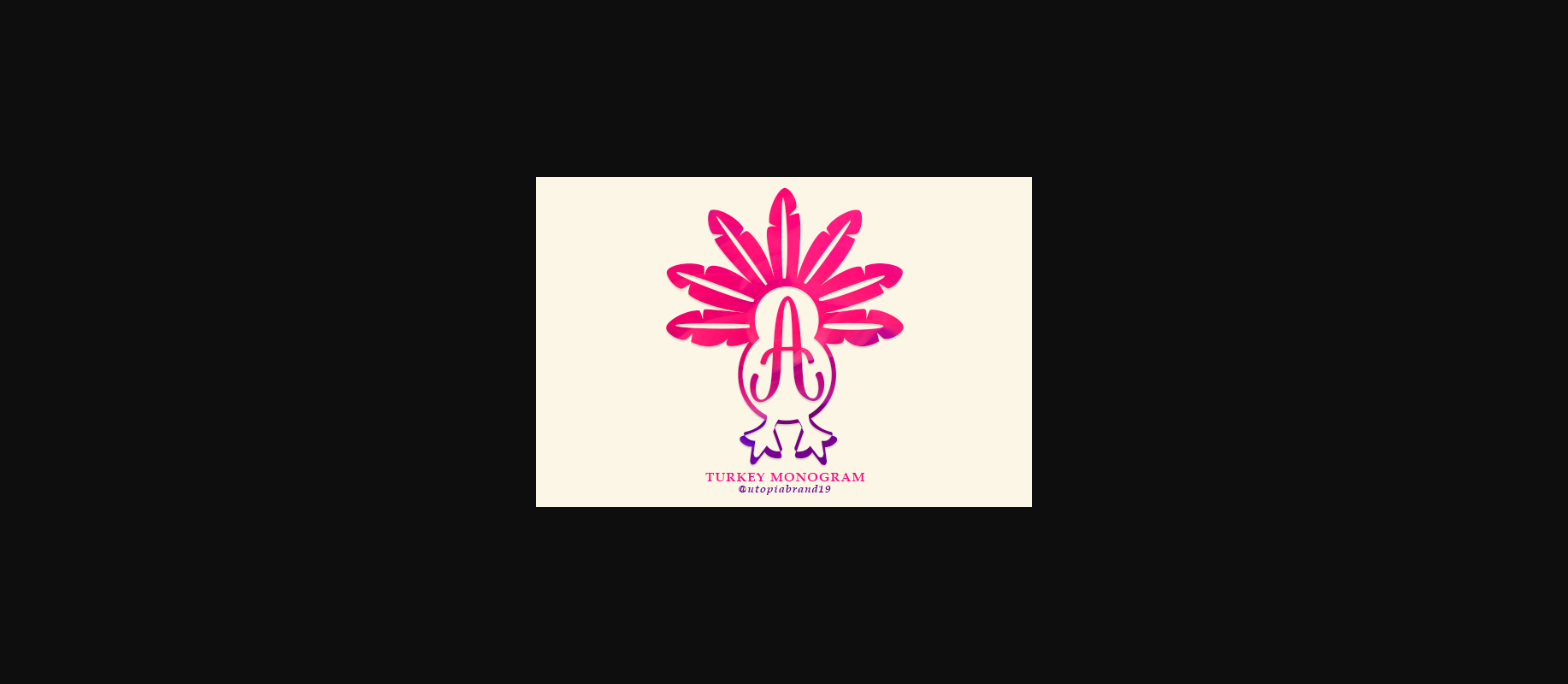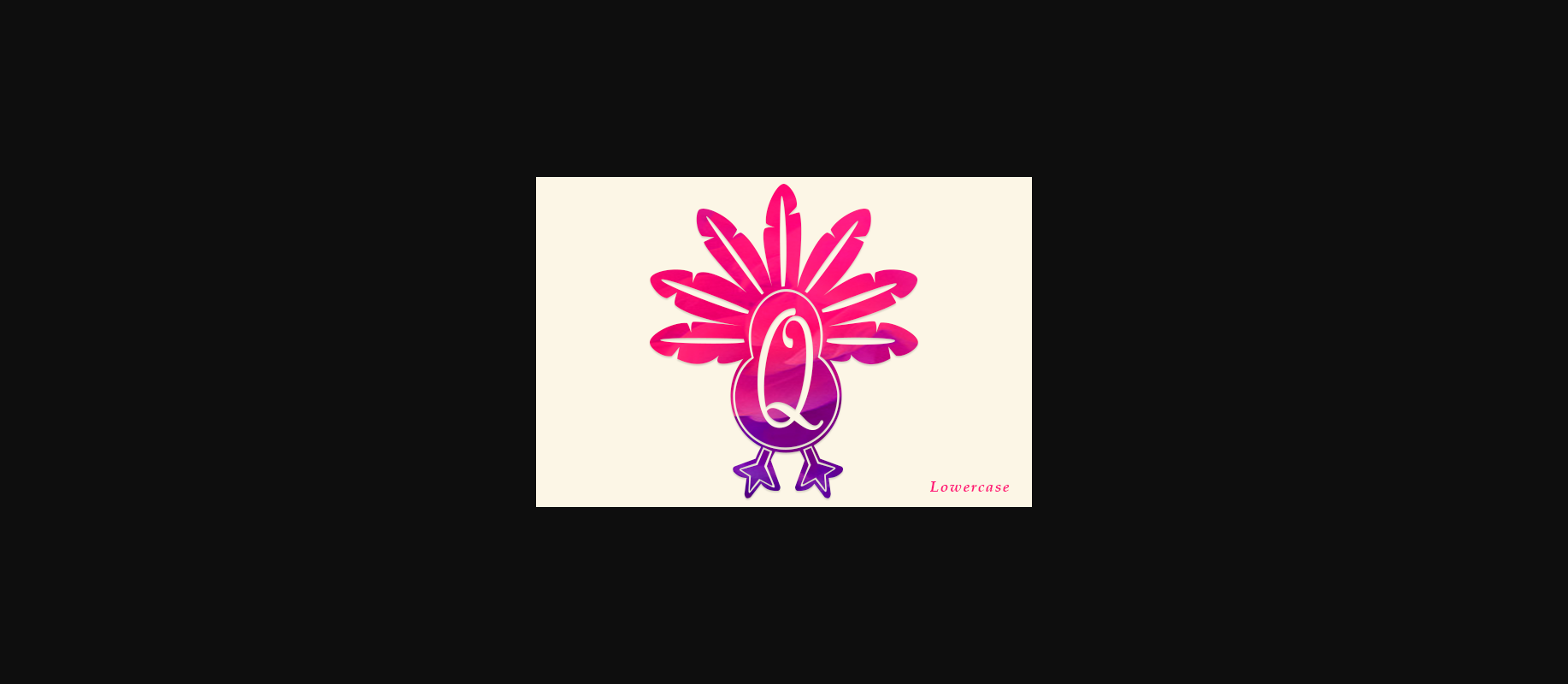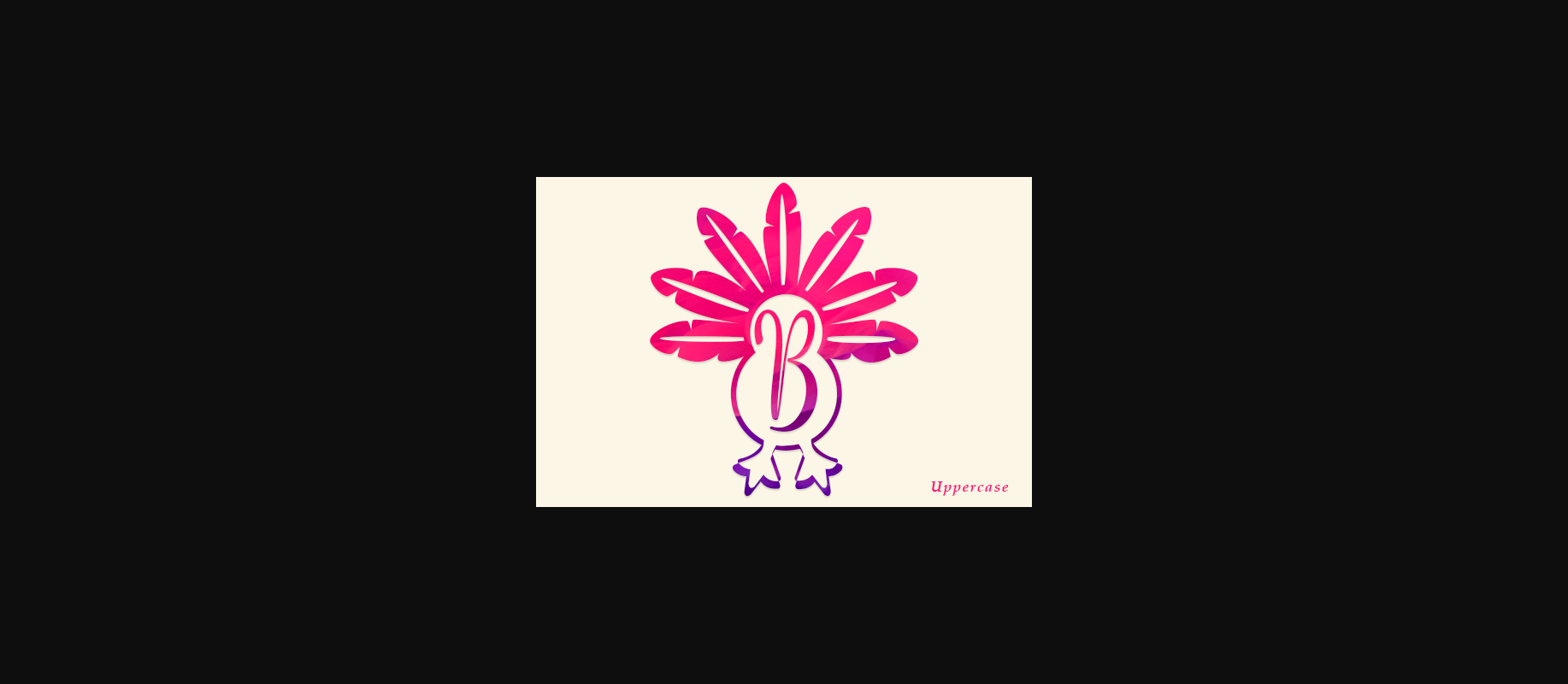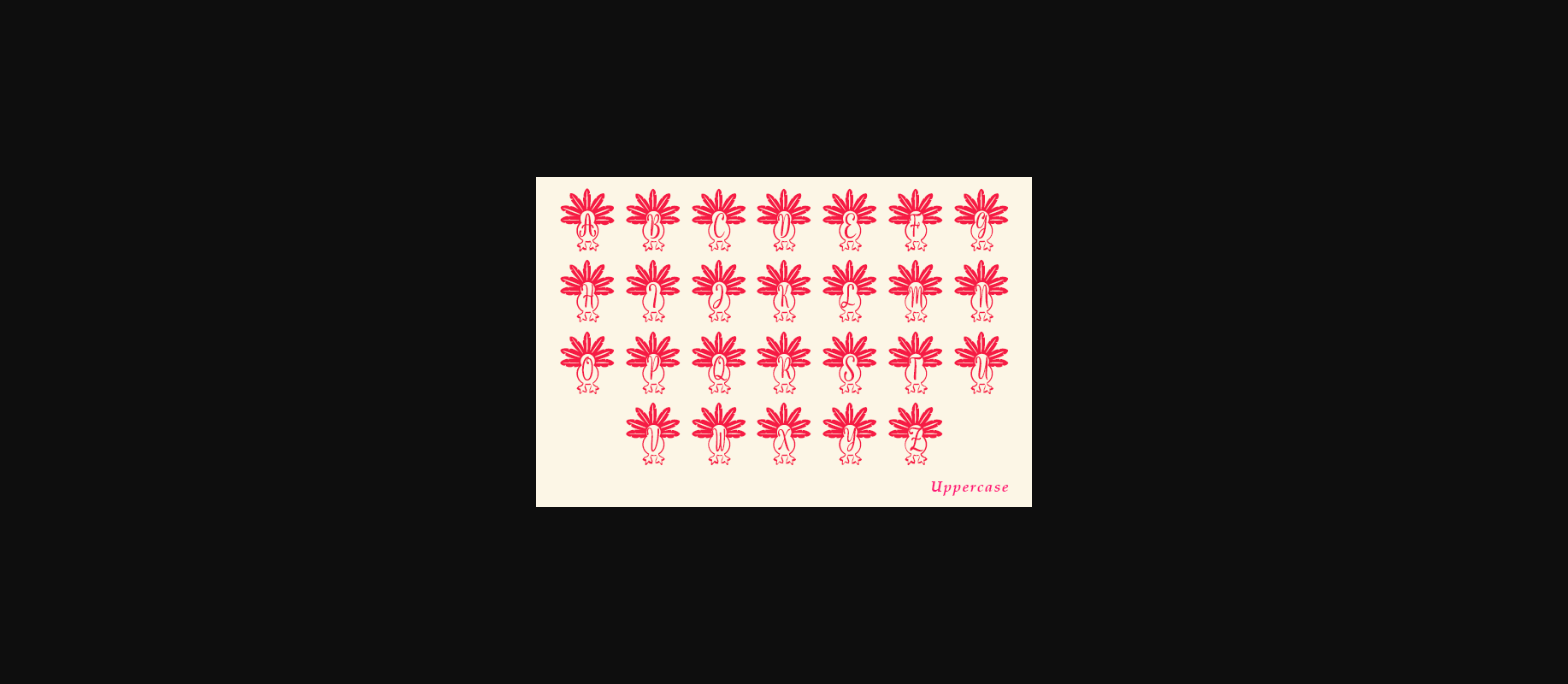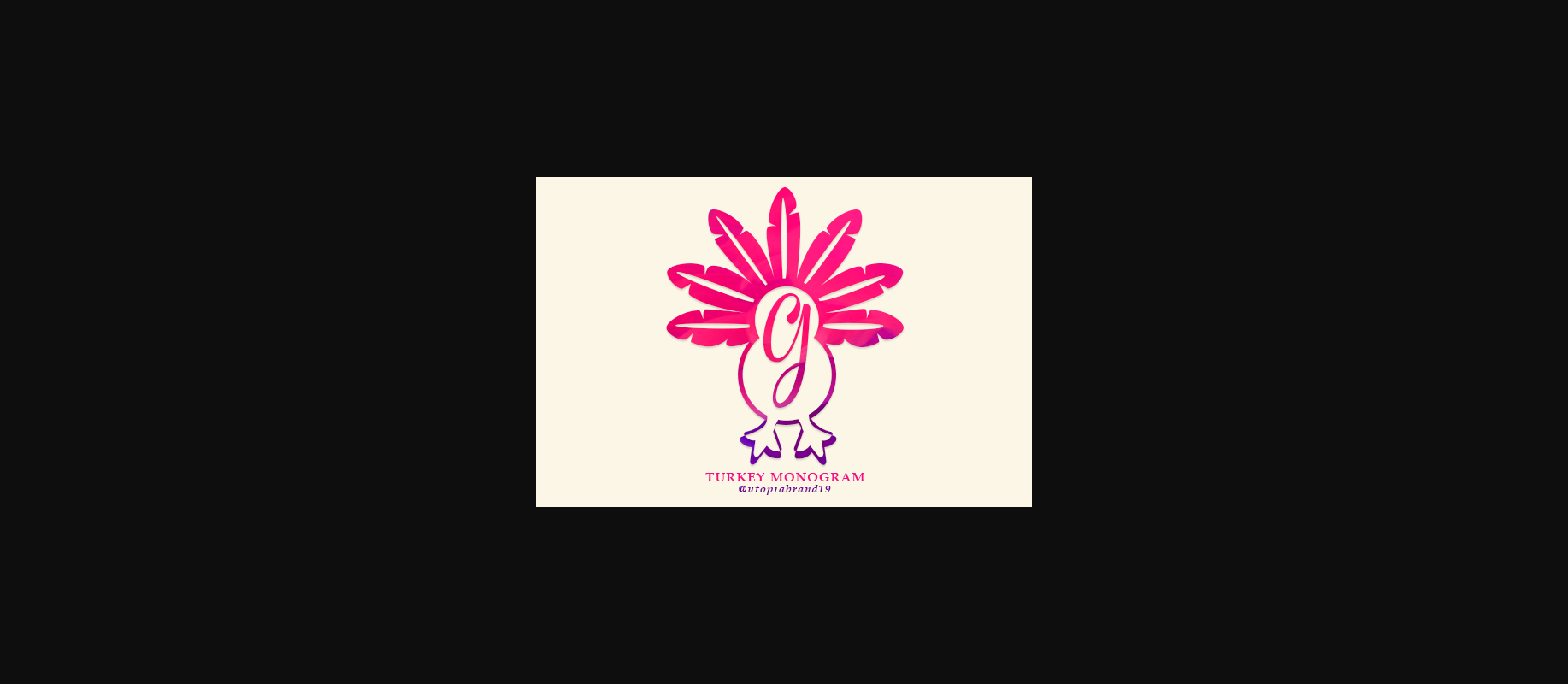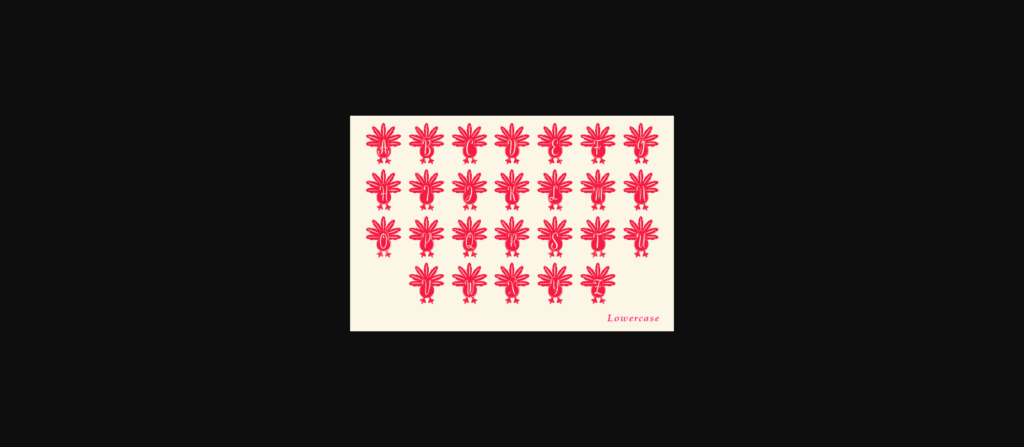
Turkey Monogram Font
About Turkey Monogram Font
Turkey Monogram is an elegant and original decorative font, featuring lovely ornaments. Fall in love with its authentic feel and use it to create gorgeous Thanksgiving cards.